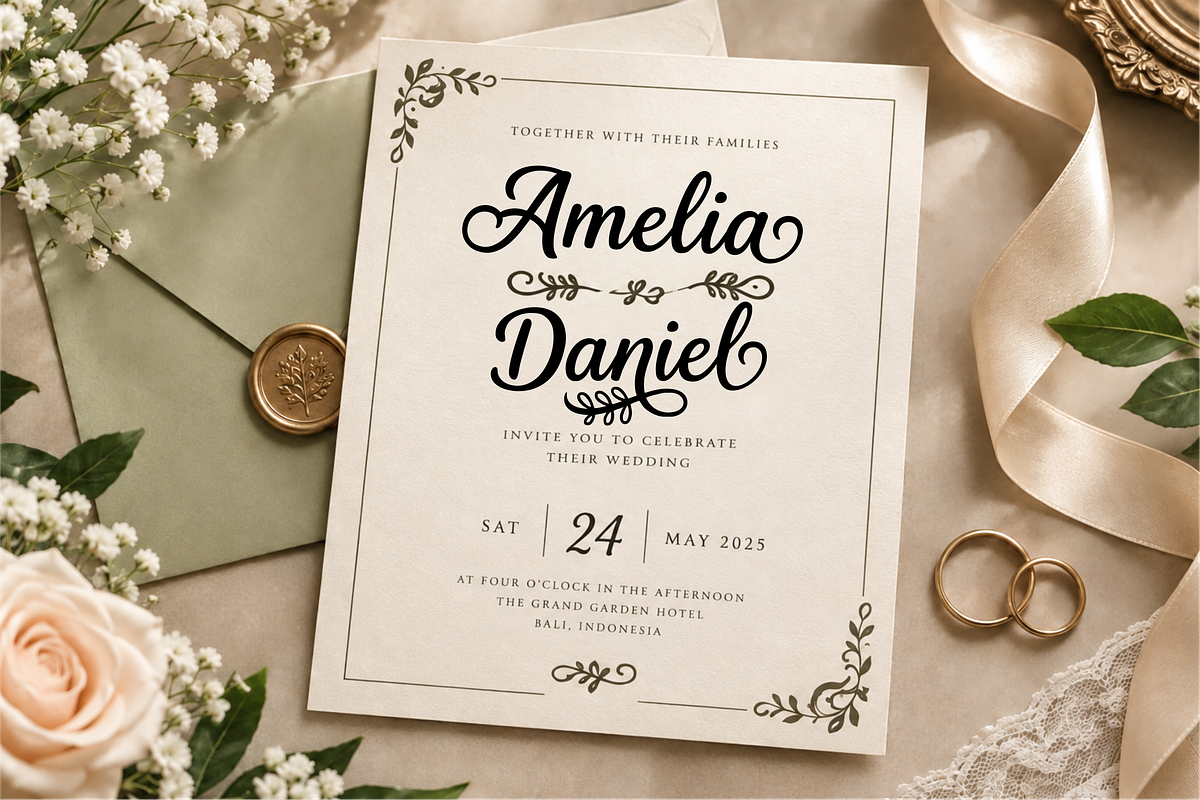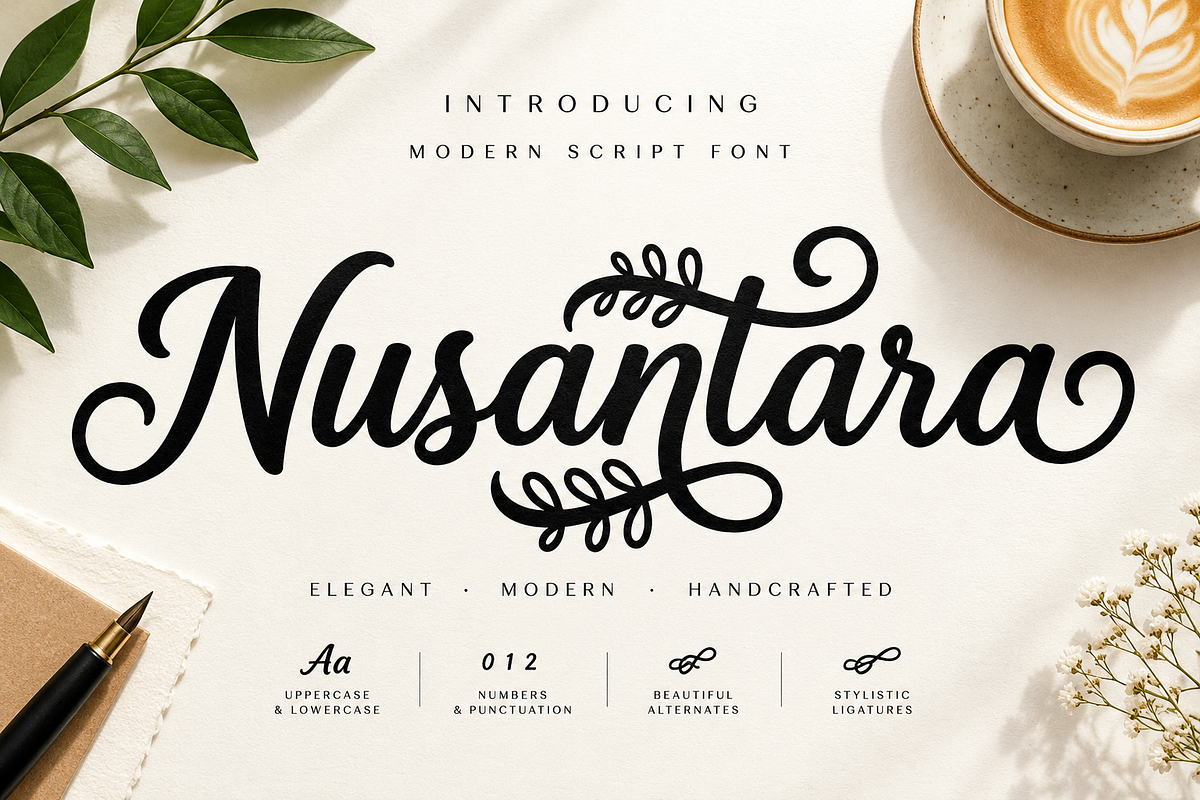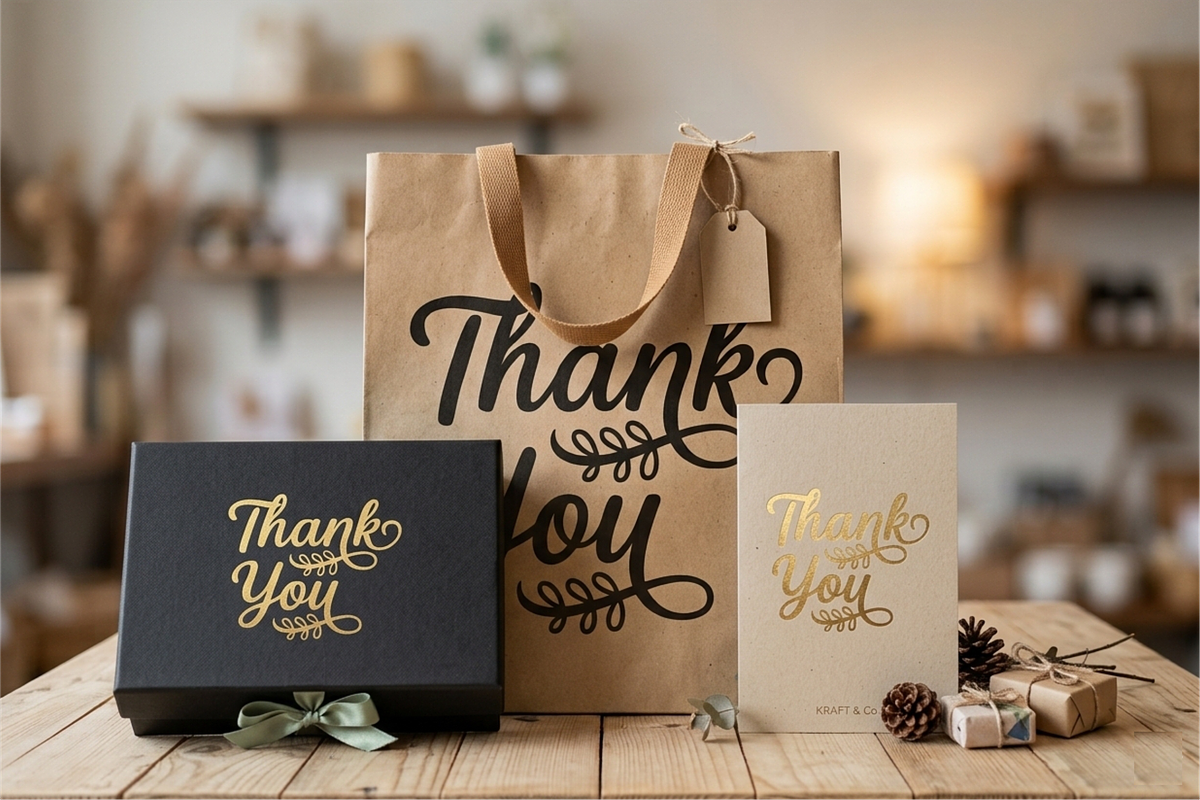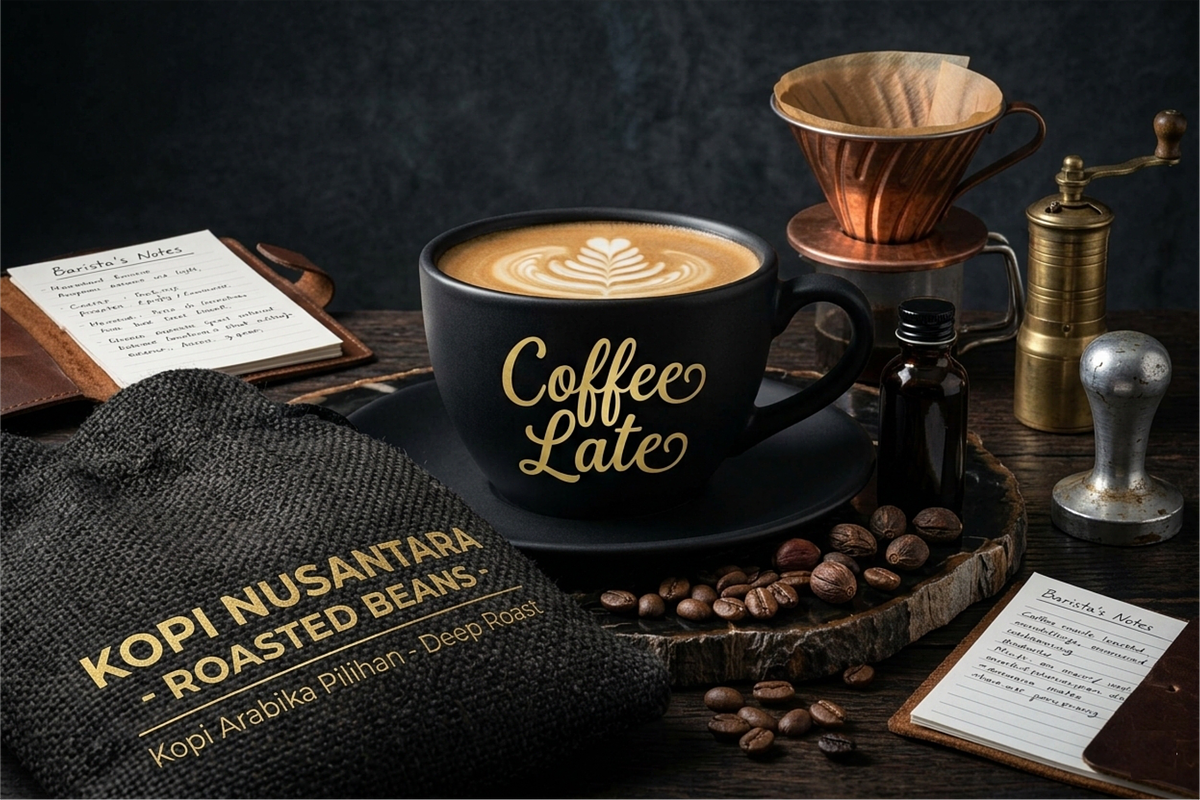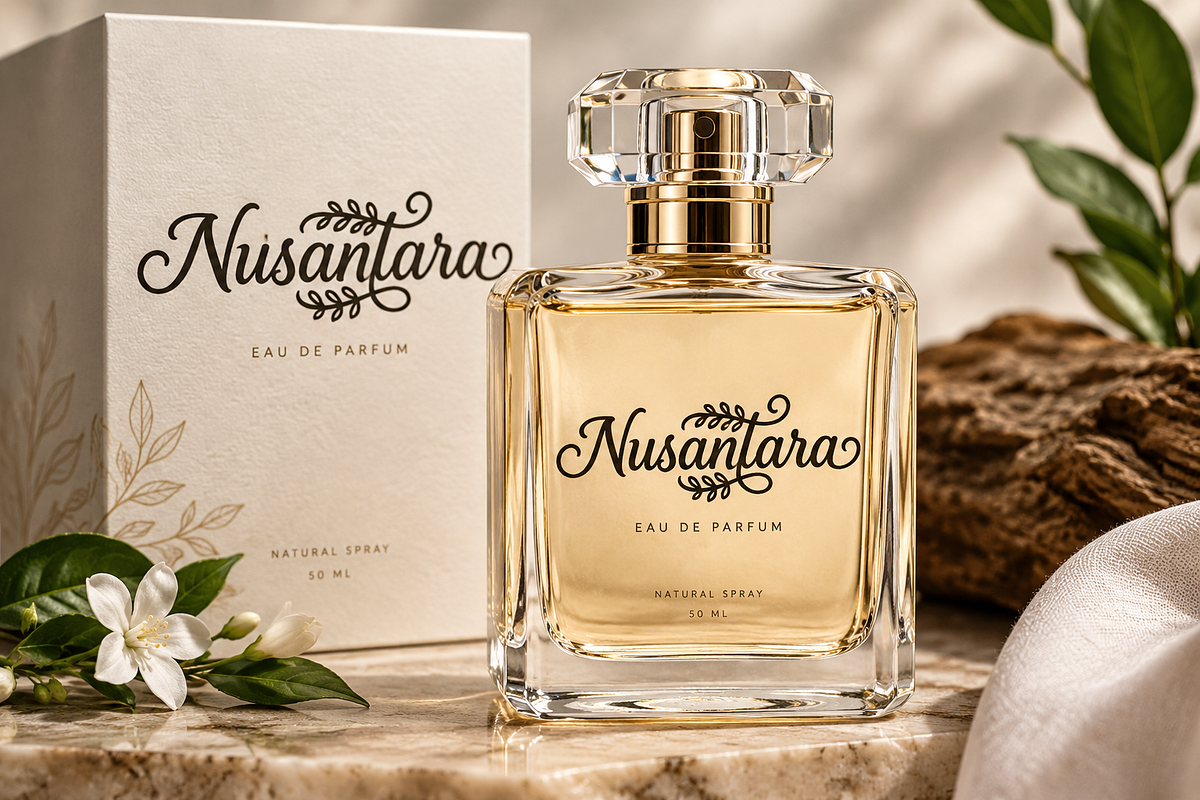
Nusantara Modern Script
Nusantara is an elegant modern script font inspired by the beauty, warmth, and artistic character of Indonesian heritage. Designed with smooth flowing strokes, expressive letterforms, graceful swashes, and decorative botanical flourishes, it brings a sophisticated handcrafted feel to every design.
Its stylish and versatile character makes Nusantara perfect for branding, logos, wedding stationery, invitations, packaging, social media designs, greeting cards, fashion branding, café and restaurant projects, and creative product packaging.